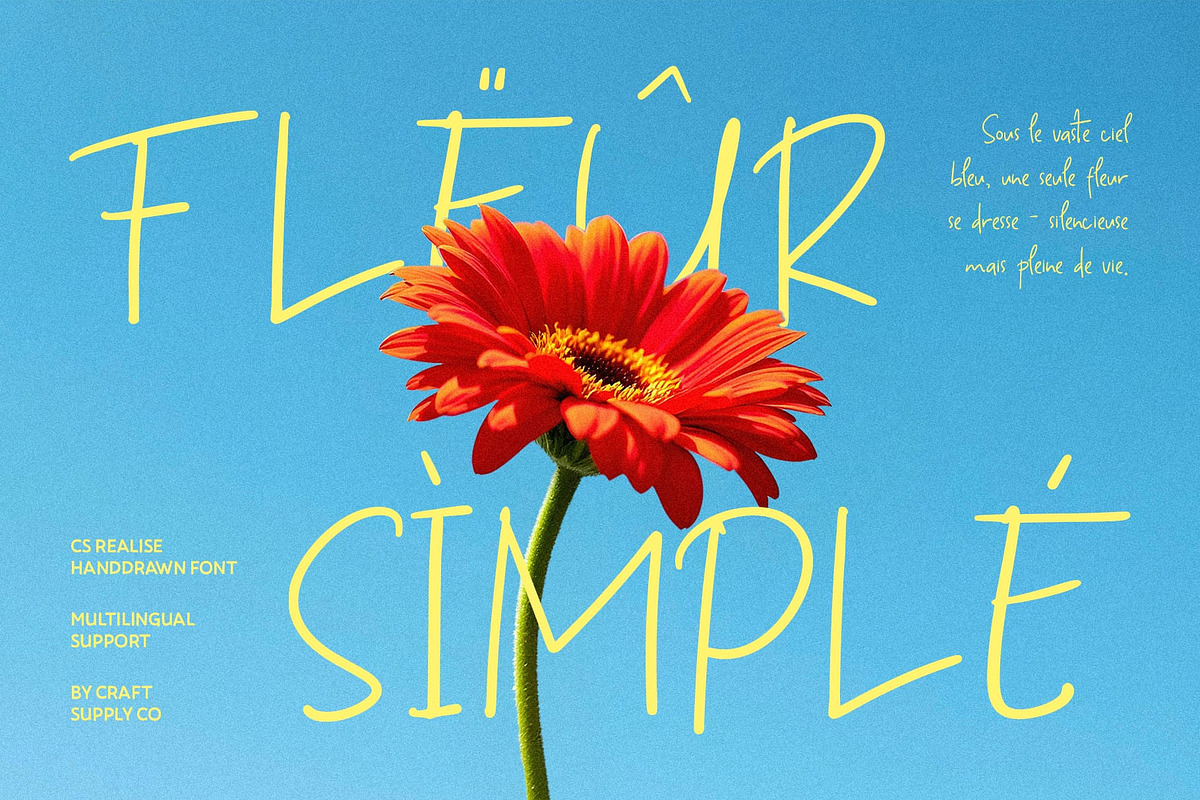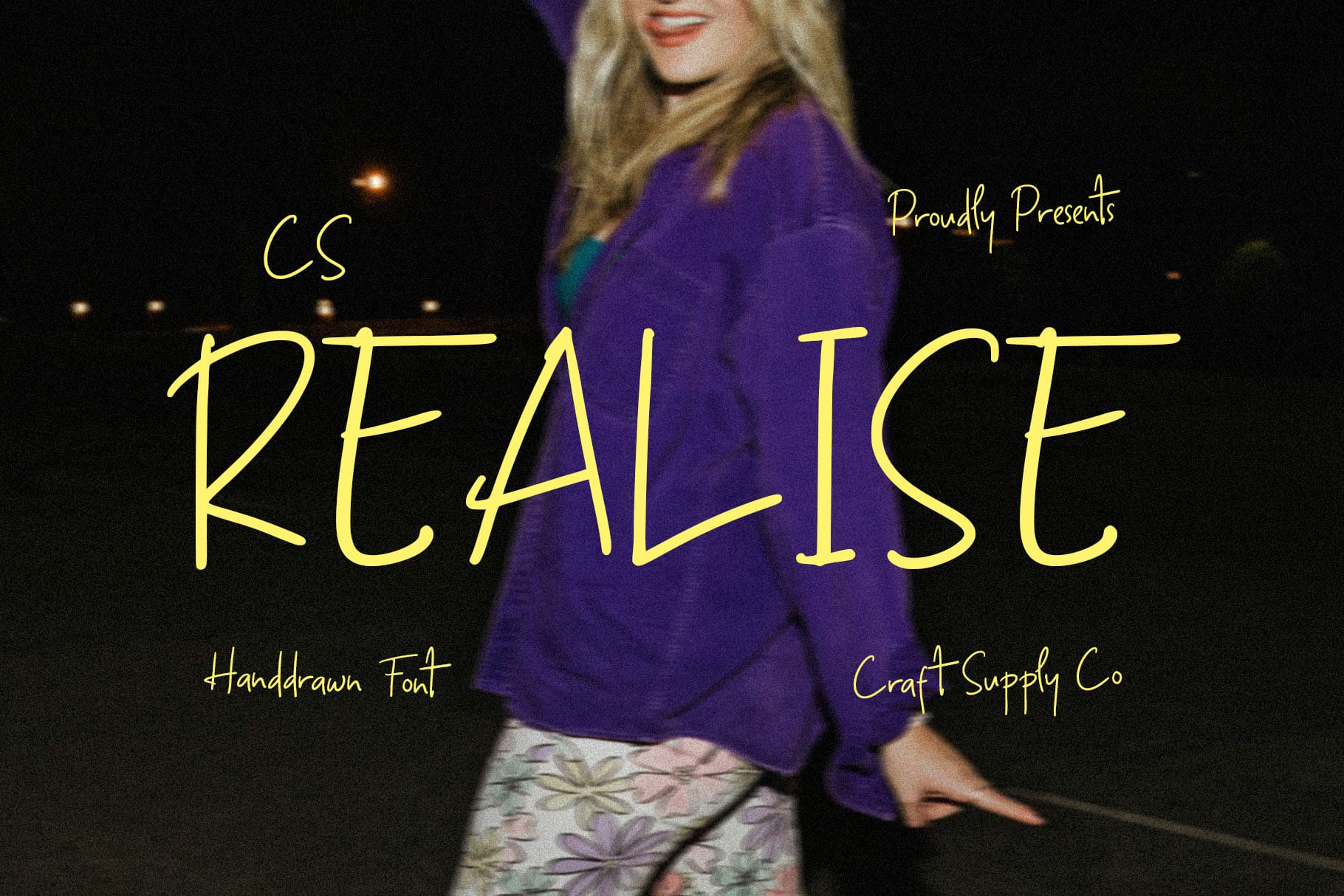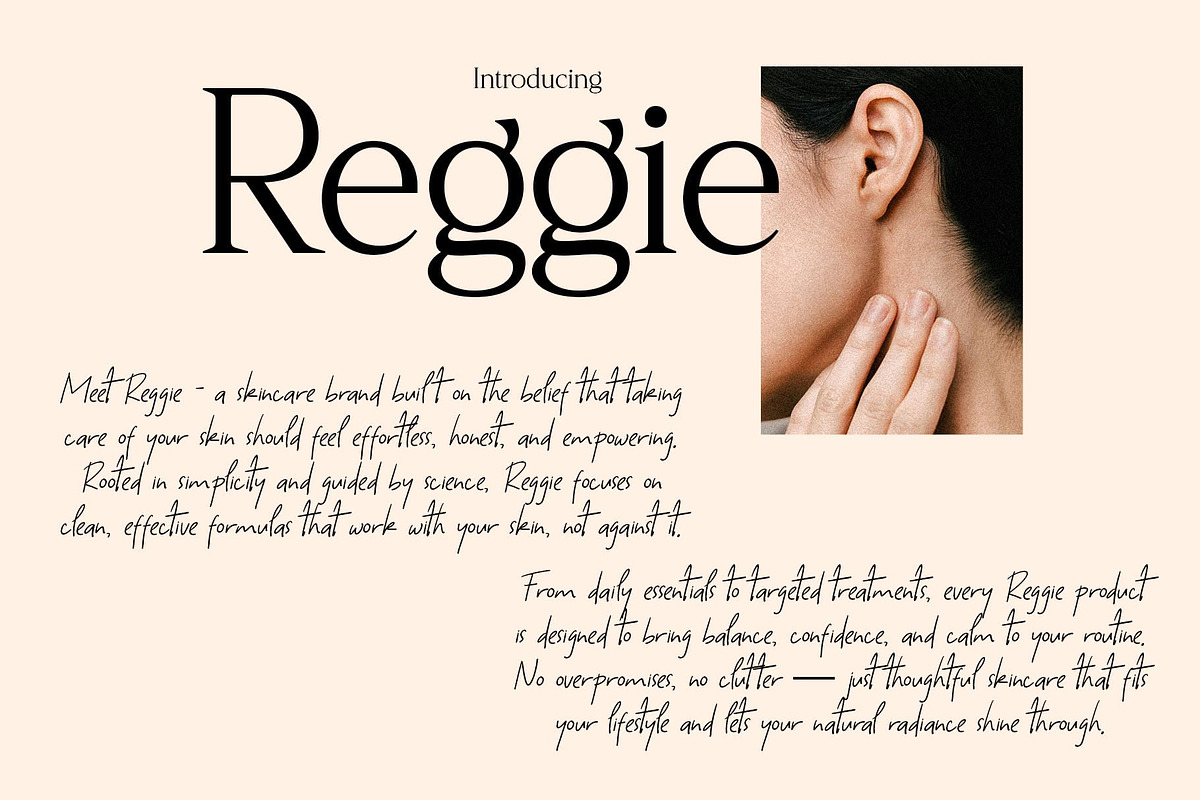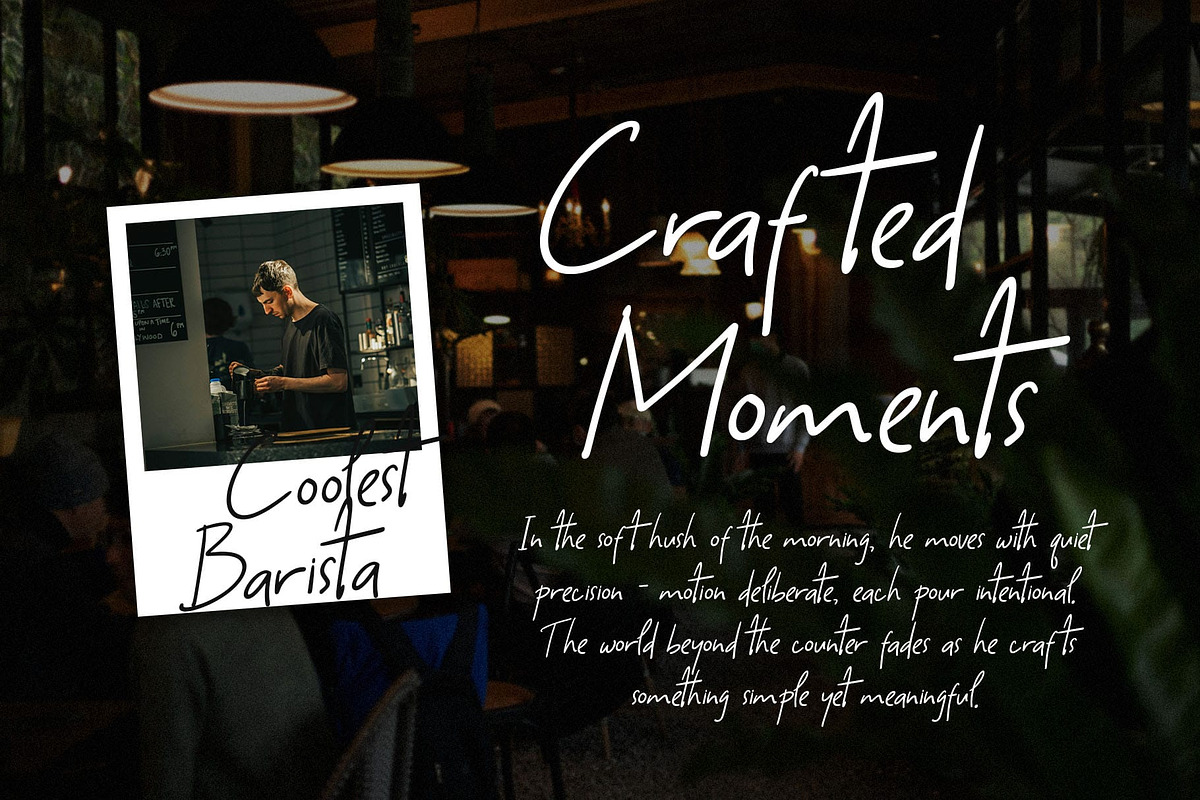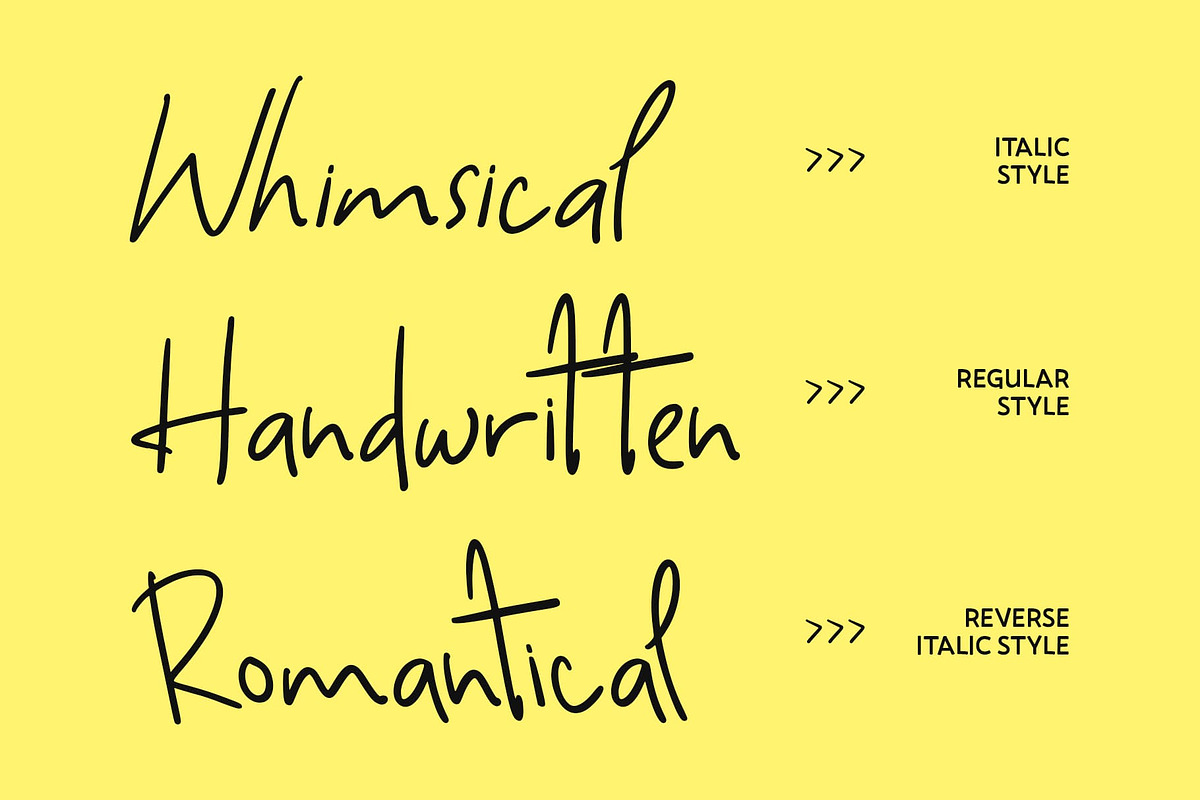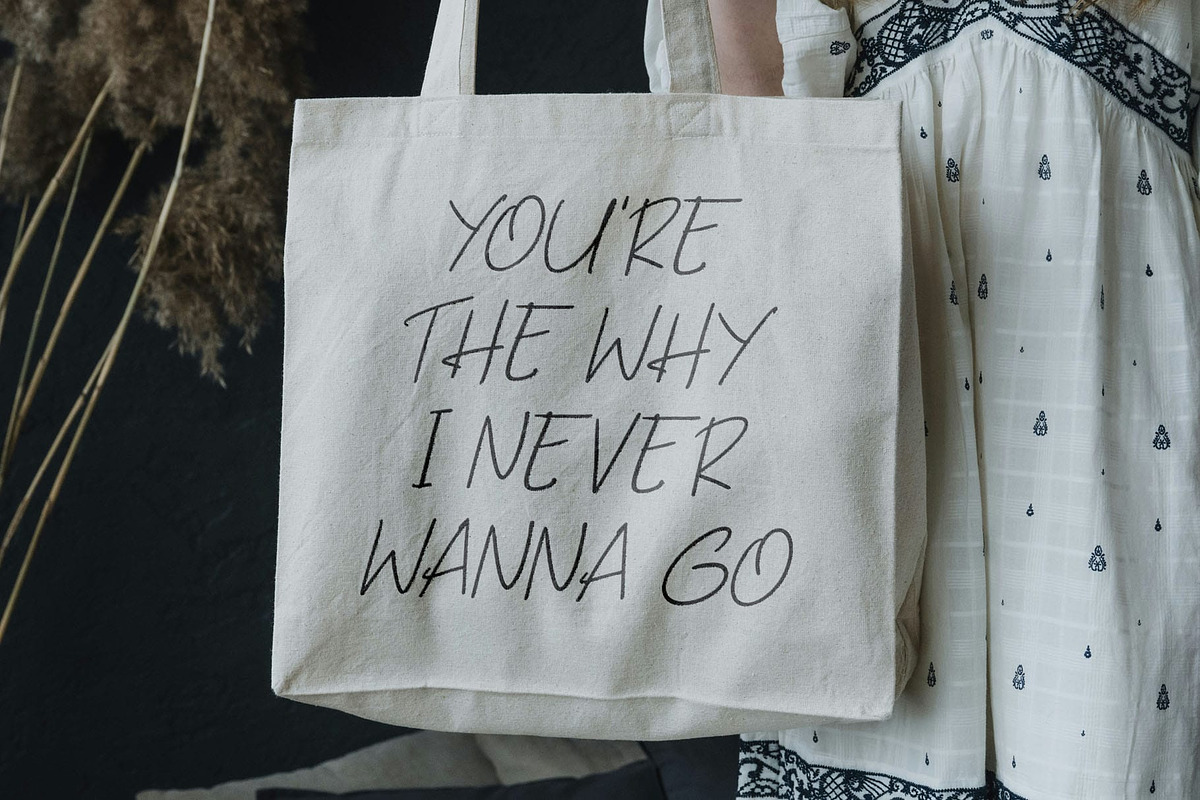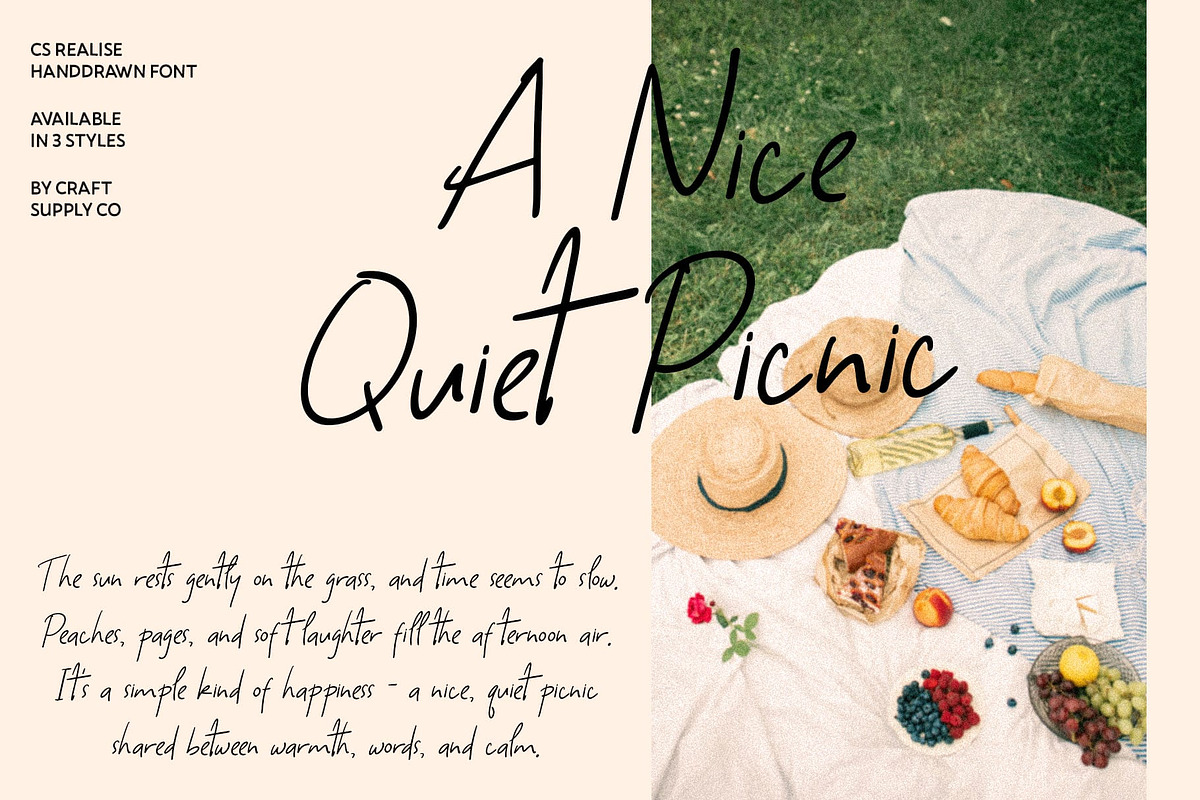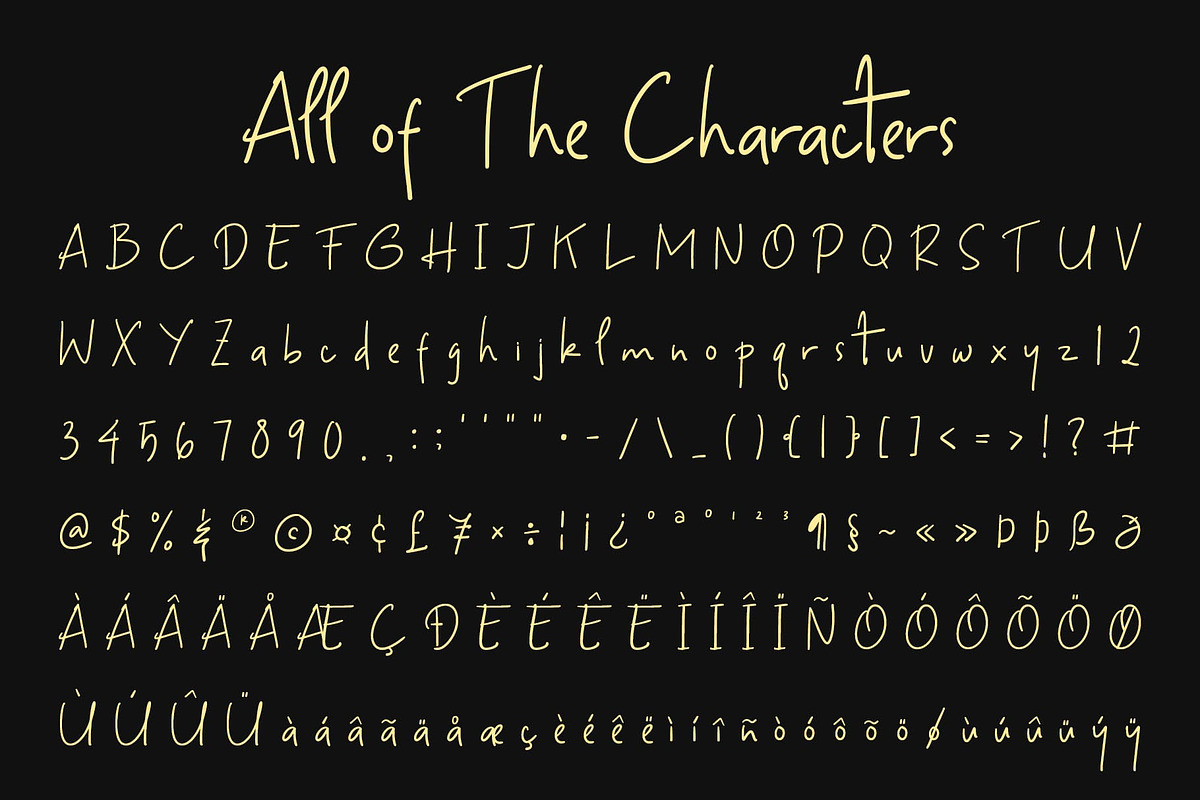
CS Realise – Handwritten Font
CS Realise – Handwritten Display Font: Authentic, Expressive, and Full of Character
Natural Handwritten Display Typeface This is a handwritten style display font designed to capture the warmth and expressiveness of human touch. Its casual yet stylish strokes make it ideal for designers seeking an authentic and approachable aesthetic that feels both modern and personal.
Organic Flow with Natural Drawn Detail Each letterform in this font carries a natural drawn texture that adds depth and individuality. The organic curves and subtle imperfections bring a sense of life and movement to your typography, making every word feel handwritten and heartfelt.
Perfect for Branding and Creative Visuals From logos and posters to product packaging and social media content, this font enhances every design with friendly charm and personality. Its expressive flow makes it a great choice for lifestyle brands, handmade products, or editorial layouts that emphasize creativity and authenticity.
Casual Yet Refined Aesthetic This font strikes the perfect balance between casual and refined. While its playful forms create a relaxed tone, its structured legibility ensures professionalism and clarity. This makes it suitable for projects that want to appear both approachable and stylish.
- CS Realise Regular
- CS Realise Italic
- CS Realise Reverse Italic